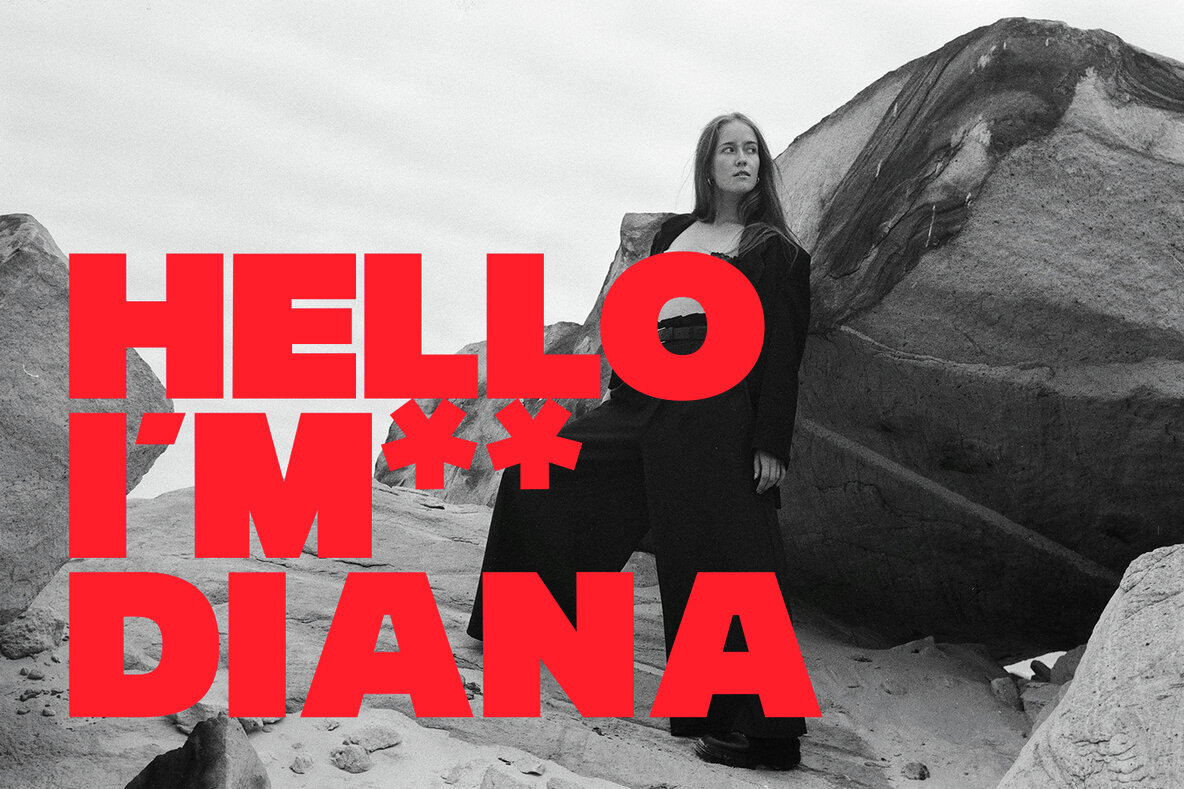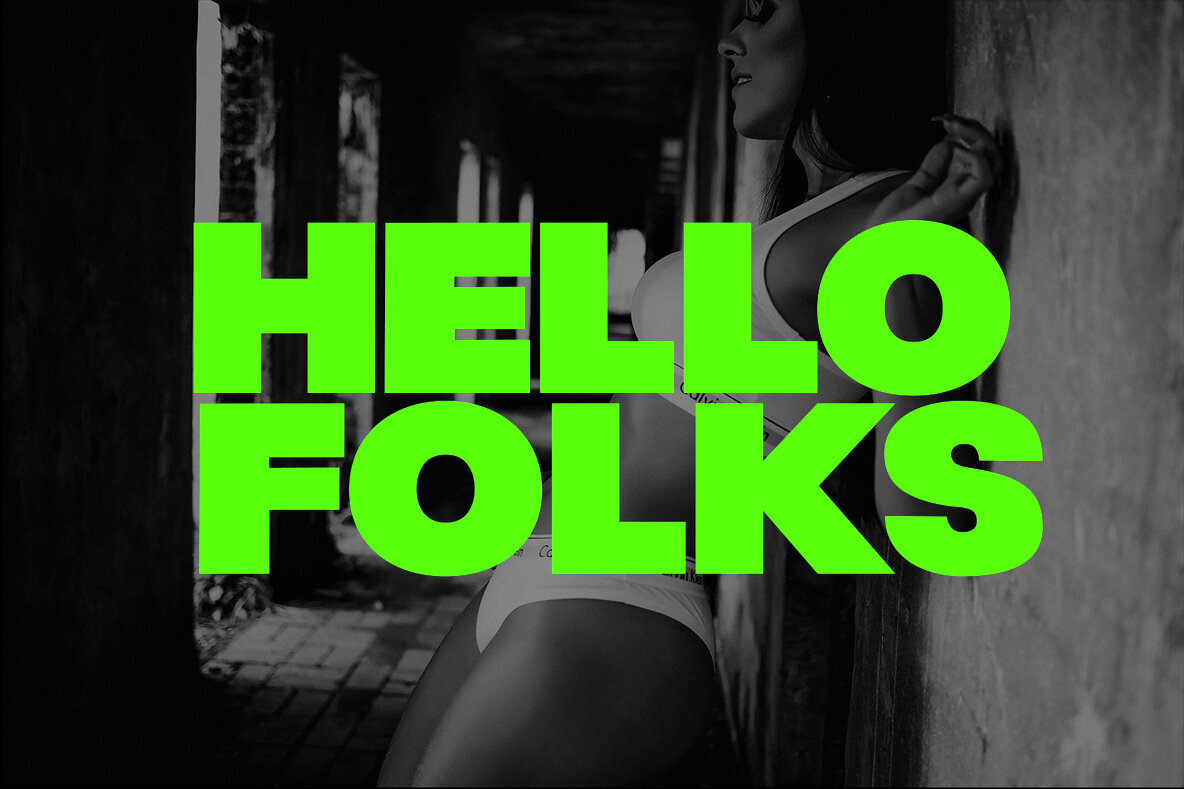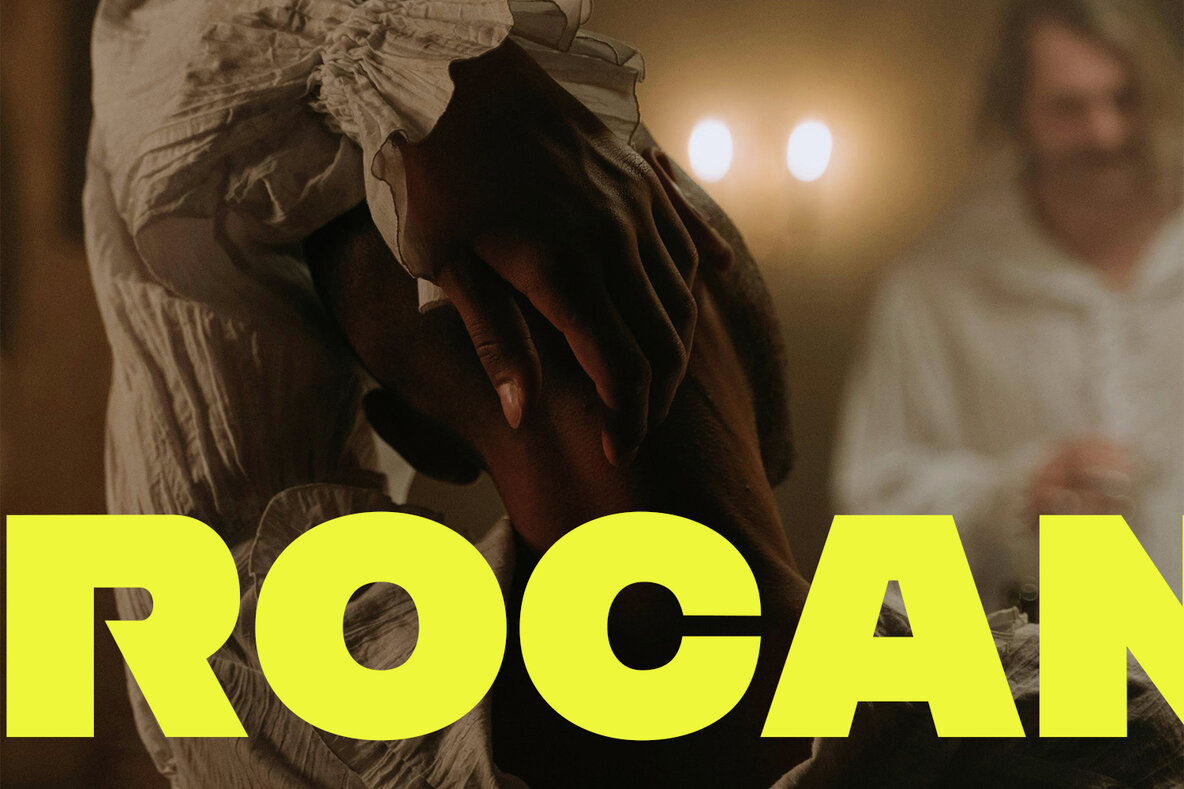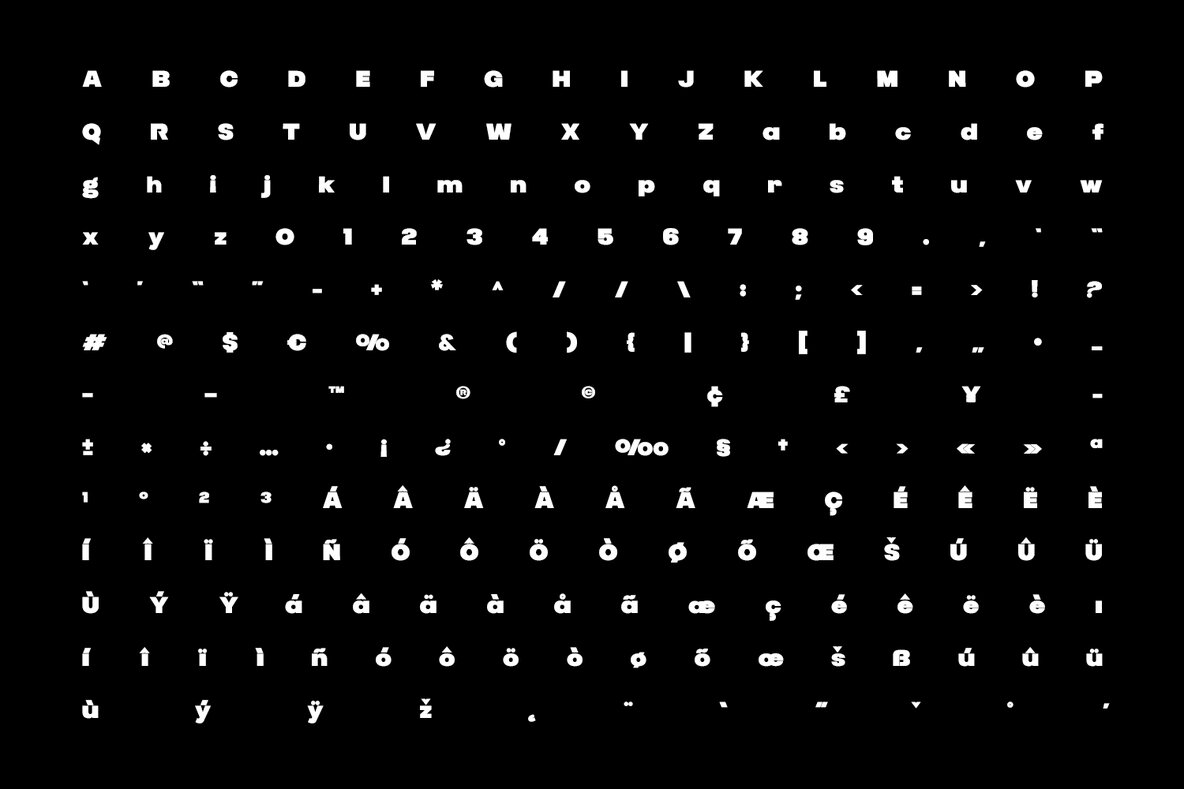
Tuborg Pro Font
Tuborg Pro Typeface ExtraBold
Tuborg Pro Display is a meticulously designed font, perfect for creating a bold impression in various creative endeavors. Ideal for posters, magazine covers, headlines, logos, and branding, it introduces a modern and dynamic flair to your designs. Each character is crafted with precision, ensuring clarity and visual appeal, making it suitable for a diverse range of applications.
Key Features:
- Neat and Precise: Every character is designed for optimal clarity and visual attractiveness.
- Versatile Usage: Perfect for eye-catching posters, striking magazine covers, and attention-grabbing headlines.
- Distinctive Style: Combines elegance with impact, ideal for transforming branding designs with its unique aesthetic.
Tuborg Pro Display effortlessly blends elegance and presence, making it an excellent choice for designers seeking a standout typeface for their projects.